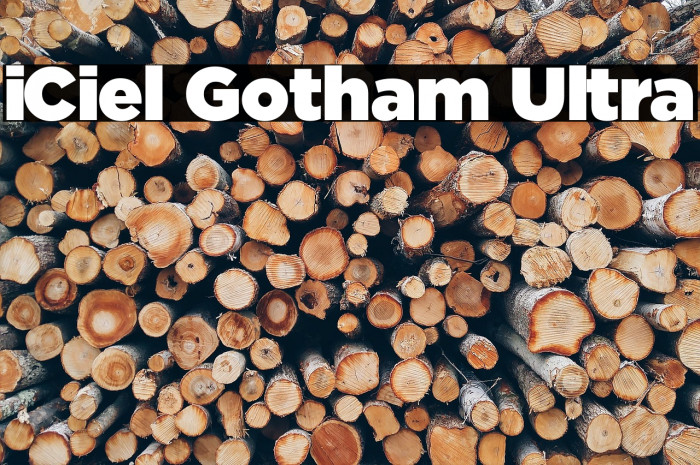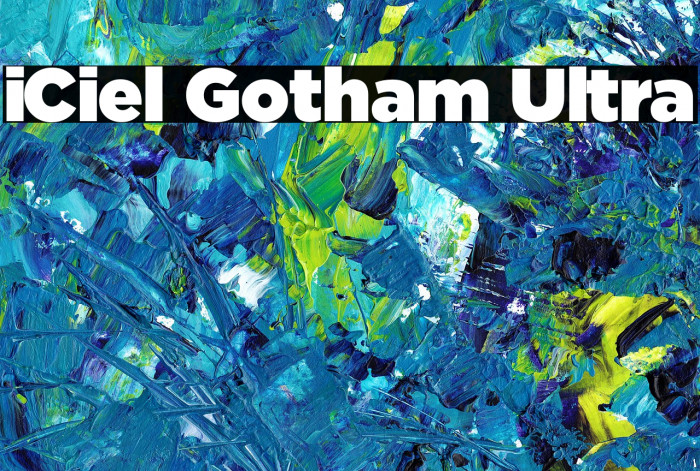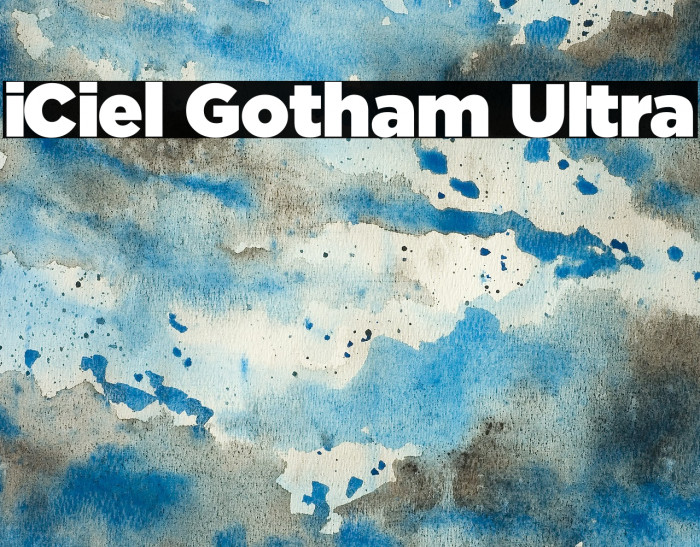
iCiel Gotham Ultra Font
This font is a bold, geometric sans-serif typeface characterized by its clean lines and modern aesthetic. The uppercase and lowercase letters are uniform in width, creating a harmonious and balanced appearance. The numbers are bold and easily legible, making them suitable for a variety of applications. Special characters are designed with the same attention to detail, ensuring consistency throughout the font. Its strong presence and clarity make it ideal for impactful headlines and branding projects.
A bold, geometric sans-serif font with a modern and clean design.
• Proposed Projects: Ideal for branding, advertising, headlines, posters, and digital media where a strong and modern look is desired.
• Category: Sans-Serif
• Overall Style: Modern
• Use Case: Headlines, Logos, Branding